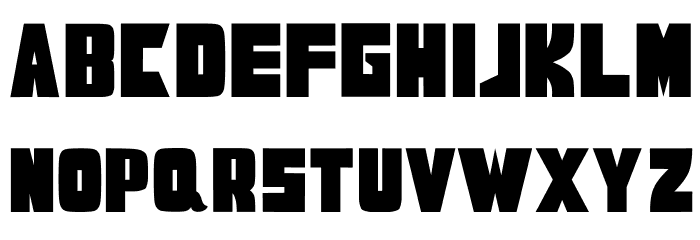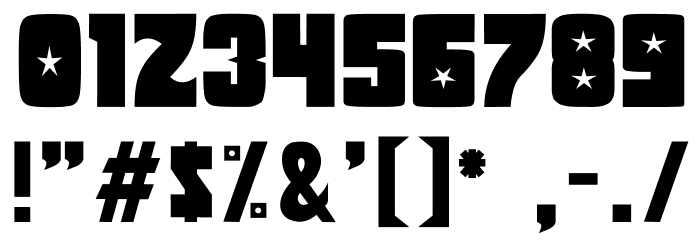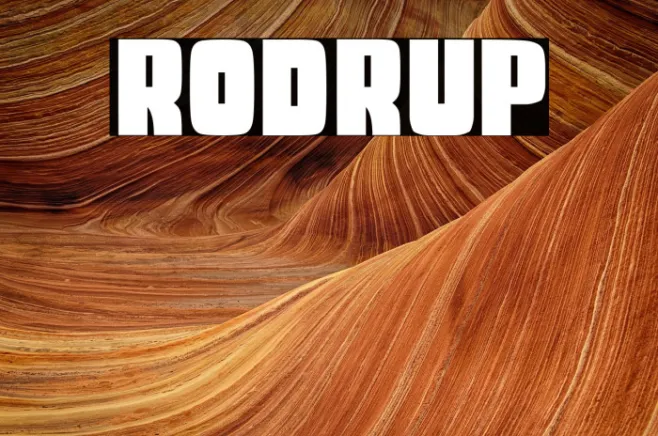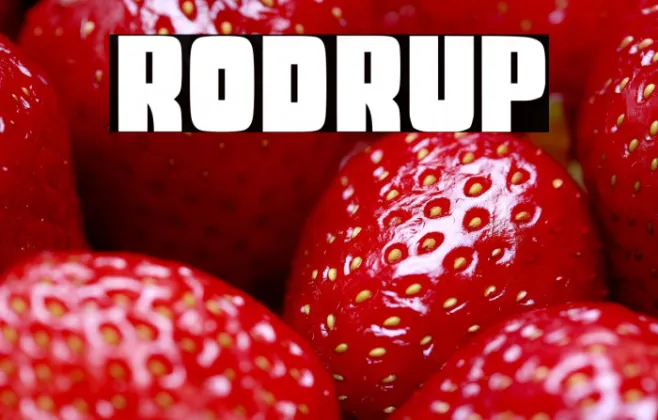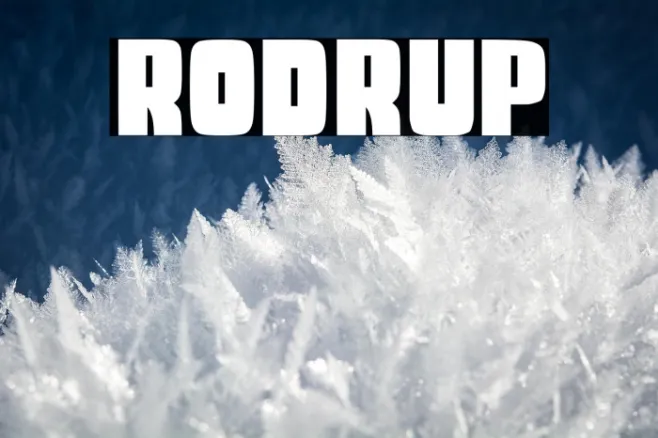
RODRUP Font
This font is a bold, decorative typeface characterized by its strong geometric shapes and unique cut-out star details within certain characters. The uppercase letters are blocky and robust, providing a commanding presence. The numbers also feature star cut-outs, adding a playful yet edgy touch. The special characters maintain the bold and solid style, ensuring consistency across all glyphs. This font is ideal for projects that require a strong visual impact and a modern, edgy aesthetic.
A bold, decorative font with geometric shapes and star cut-out details.
- Font: RODRUP
- Proposed Projects: Ideal for poster designs, branding projects, event promotions, and any creative work that requires a bold statement.
- Overall Style: Modern, Edgy